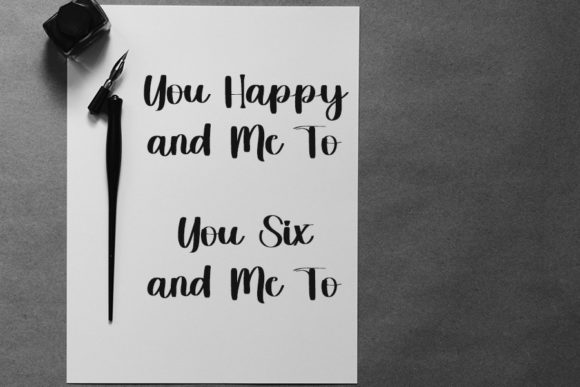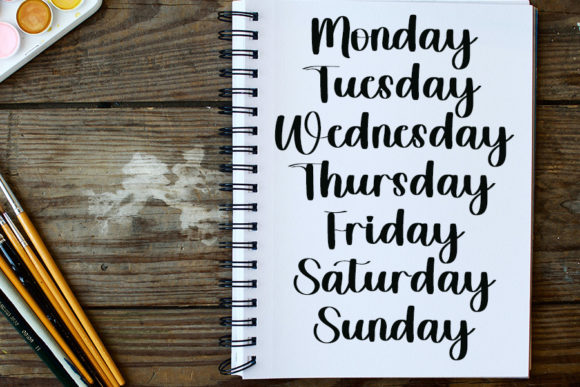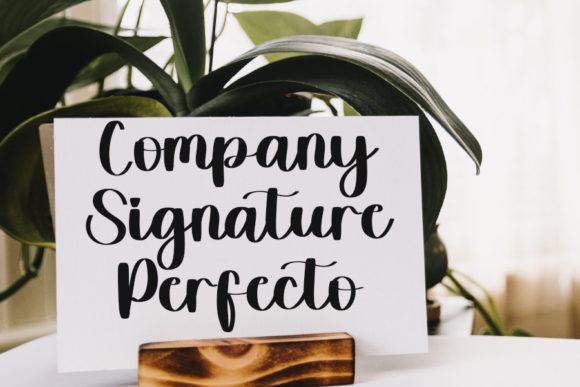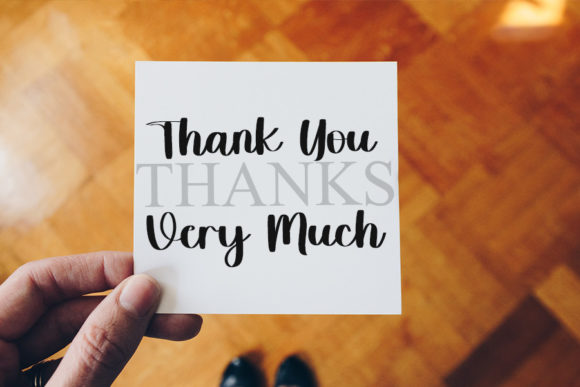
Introduction to Signature Christmas Font
It’s the most wonderful time of the year – Christmas is just around the corner, and designers everywhere are itching to create something magical for their clients. As I sat at my desk, surrounded by twinkling lights and festive decorations, I couldn’t help but feel a surge of inspiration. That’s when I stumbled upon the Signature Christmas Font – a stunning, high-quality design resource that would elevate any creative project.
With its ravishing round lettered style and chic script, the Signature Christmas Font is the perfect addition to any designer’s toolkit. Whether you’re crafting beautiful wedding invitations, creating eye-catching social media posts, or designing stunning stationary art, this font is sure to make your project stand out. And the best part? It’s available for free download, complete with a transparent background that makes it easy to integrate into any design.
For designers, the Signature Christmas Font is a valuable resource that can add a touch of sophistication and whimsy to any project. Its unique style and high-quality design make it an ideal choice for anyone looking to create something truly special this holiday season.
Key Features of Signature Christmas Font
- High-quality design resource for creative projects, perfect for adding a touch of festive charm.
- Unique, hand-drawn design elements, including intricate patterns and ornaments, to add a personal touch to your designs.
Honest Review: Signature Christmas Font
I recently stumbled upon the Signature Christmas Font, and I have to say, it’s been a game-changer for my creative project. The font is a high-quality design resource that adds a touch of holiday magic to any design.
- ✨ The font is extremely versatile and can be used in a variety of creative projects, from Christmas cards to social media graphics.
- ✨ The transparent background option allows for seamless integration with any design element.
- ⚠️ The font is only available in a limited range of styles and sizes, which may not be suitable for all design needs.
- ⚠️ The font may not be as polished as some other commercial font options, but it still gets the job done.
Overall, I’m impressed with the Signature Christmas Font. It’s a great resource for designers looking to add a festive touch to their creative project. With a little creativity, this font can help take your design to the next level.
The Signature Christmas Font is ideal for creating festive holiday invitations, gift tags, and social media graphics. You can also use it to add a touch of holiday cheer to your website or blog.